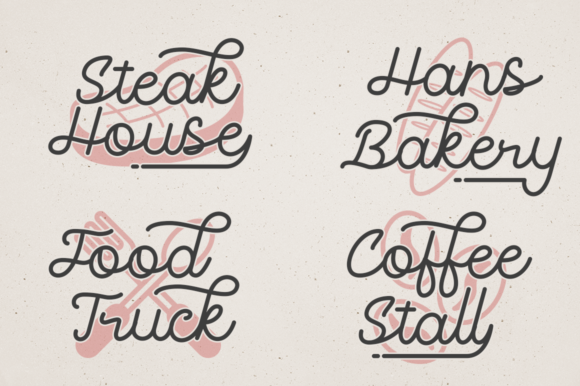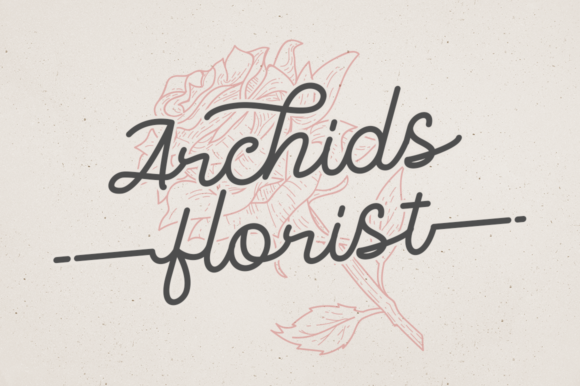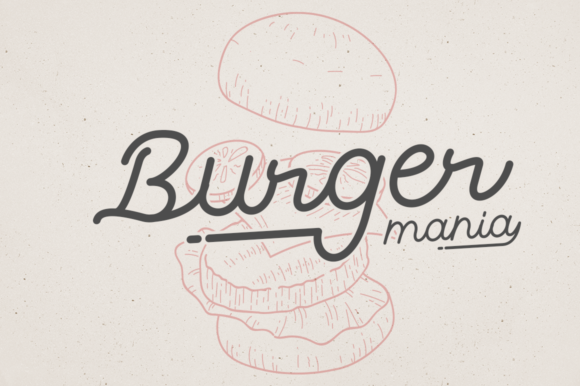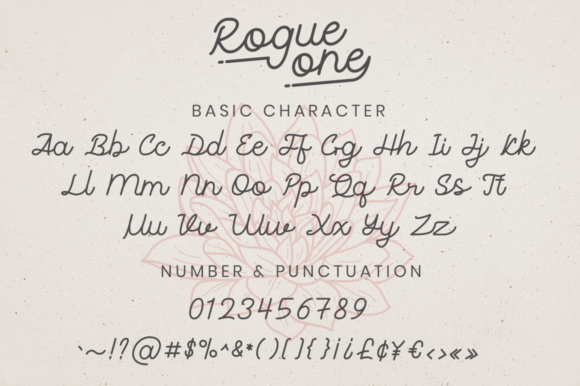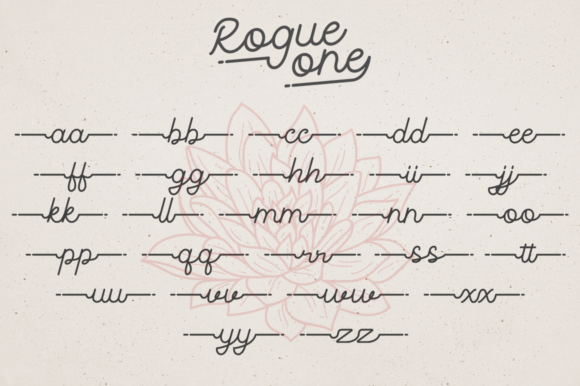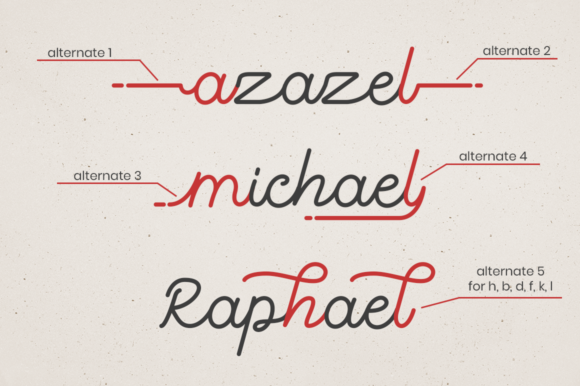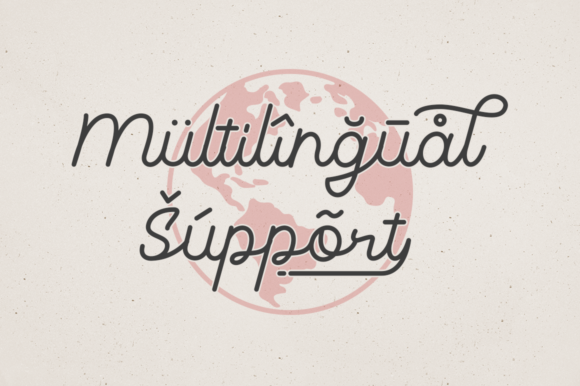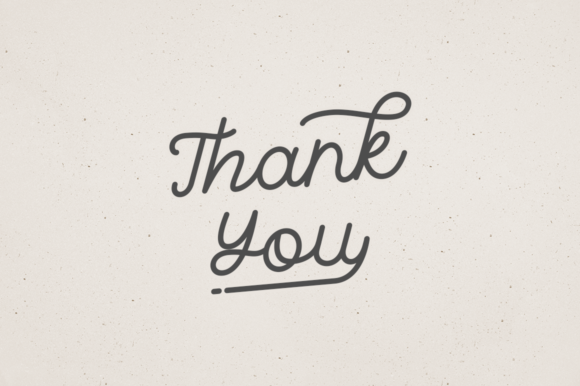
HomeScript FontsRogue One Font Script Fonts Rogue One Font FacebookXPinterestWhatsApp Rogue One Font Poster 2 Rogue One Font Poster 3 Rogue One Font Poster 4 Rogue One Font Poster 5 Rogue One Font Poster 6 Rogue One Font Poster 7 Rogue One Font Poster 8 Rogue One Font Poster 9 About Rogue One Font Rogue One is a beautiful monoline script with cool swashes. Get inspired by its organic elegance. DOWNLOAD ON CREATIVE FABRICAThis font is sold and delivered by Creative Fabrica. Font Canyon may earn a commission if you buy through this link. People also explored Boostpest Font Nina Ninut Font Pumpkin Monogram Font Flower Minimalist Font Calligraphy Font Hello Marvelia Font Stay Wonderland Font Korsang Font Hello Signature 366 0 TagsRogue One Font Previous articlePasstyn Duo FontNext articleCamelia Font LEAVE A REPLY Cancel reply Comment: Please enter your comment! Name:* Please enter your name here Email:* You have entered an incorrect email address! Please enter your email address here Website: Save my name, email, and website in this browser for the next time I comment. Personal Use Free Arnitta Callina Personal Use Free Read more about this font Dr.Marz Personal Use Free Read more about this font Starting Live Personal Use Free Read more about this font Kilsonburg Personal Use Free Read more about this font BLOG The 10 Best Handwriting Fonts to Add Personality to Your Designs 10 of the Best Handwriting Fonts for Adding Personality to Your Designs There will undoubtedly be no other better choice than handwriting fonts to give... Elegant Wedding Invitation Fonts – Handwritten & Script Fonts 5 Fonts That Will Dominate Design Trends in 2026 Top 10 Handwritten Fonts That Elevate Your Designs